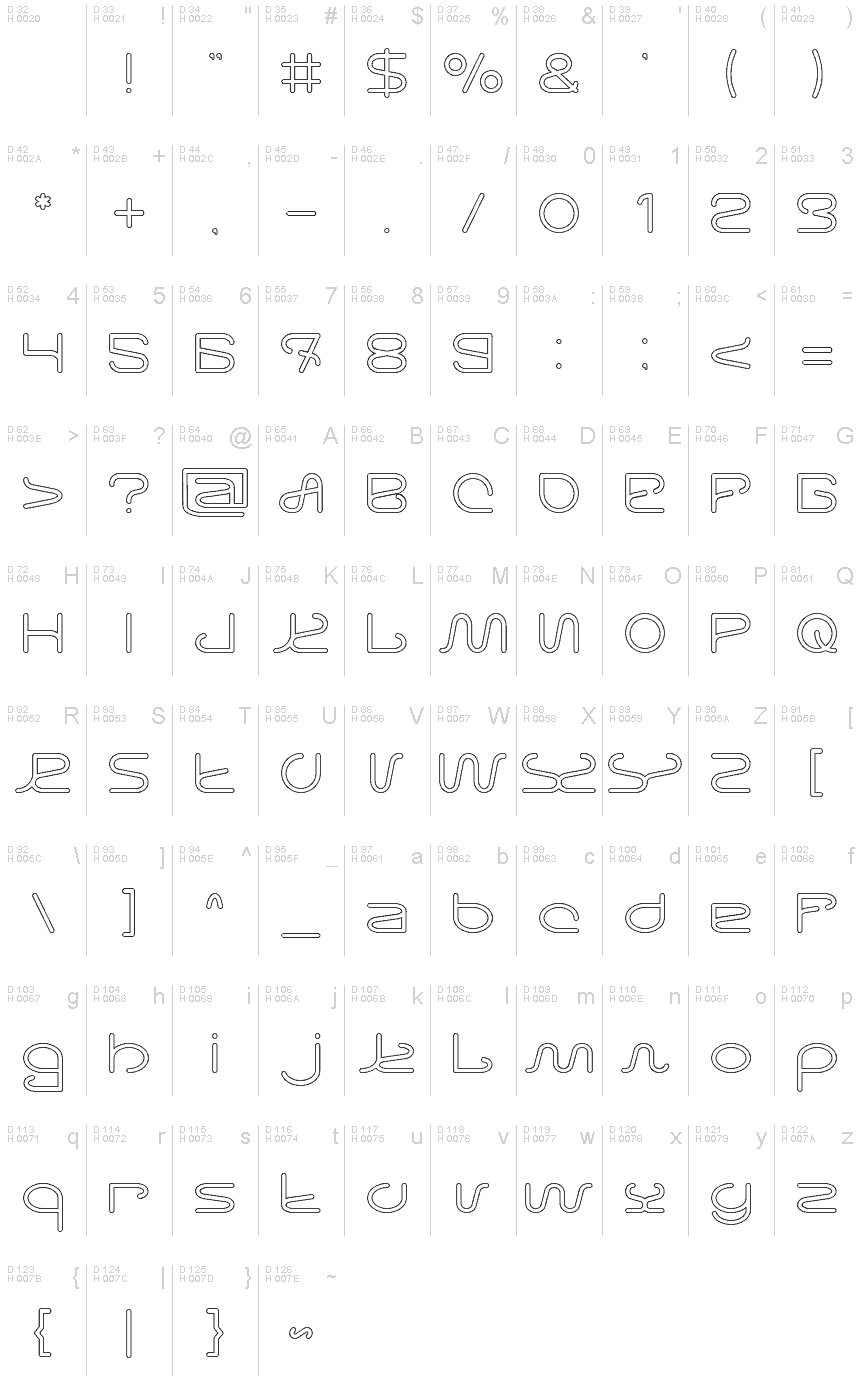
Letting The Cabble Sleep-Hollow
Letting The Cabble Sleep, a captivating display font created by Weknow, exudes a distinct techno-inspired aesthetic with its striking outlined style and light, expanded proportions. This unconventional typeface evokes a sense of futuristic elegance, its clean lines and geometric forms dancing across the page, captivating the viewer with a mesmerizing, almost hypnotic presence.
Versatile and adaptable, Letting The Cabble Sleep shines in a variety of design applications, from bold and impactful headlines to eye-catching branding and packaging. Its distinctive techno-influenced personality lends itself particularly well to projects that require a modern, forward-thinking visual identity, seamlessly blending form and function to deliver a truly unforgettable typographic experience.